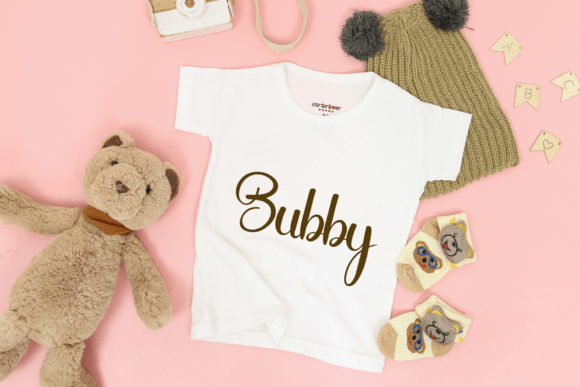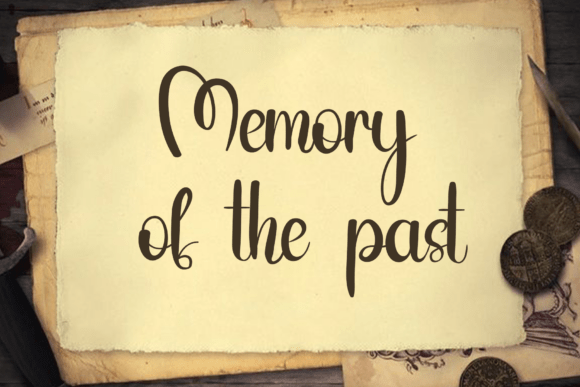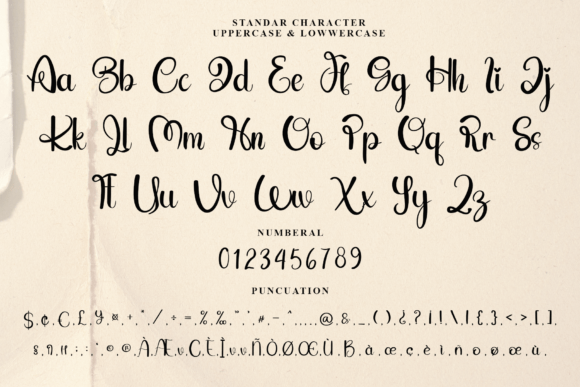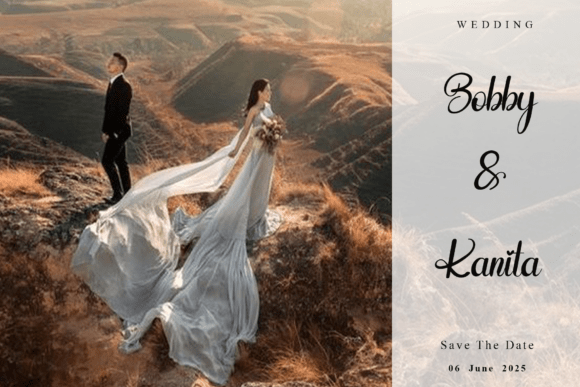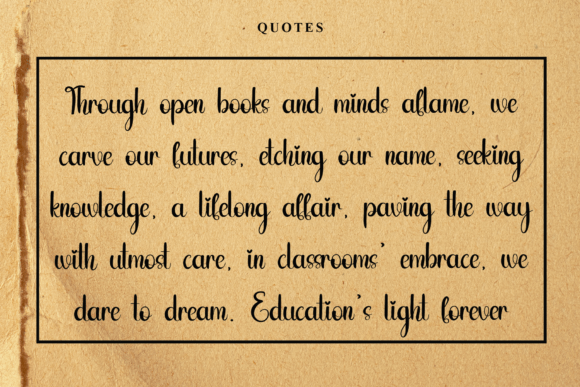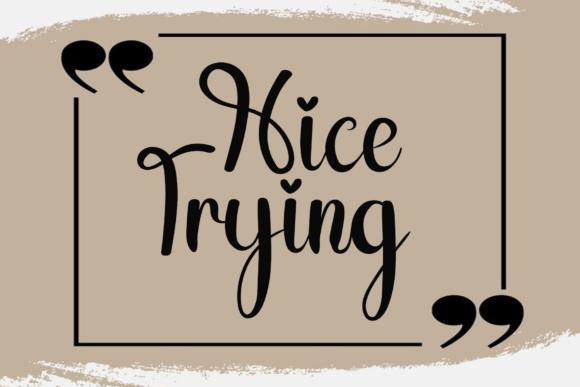
Aries Font: The Sweet and Elegant Handwritten Font for Your Design Needs
Are you looking for a font that can add a touch of elegance and romance to your designs? Look no further than Aries Font, a beautiful and cursive handwritten font that is perfect for a variety of design projects. In this article, we’ll explore the features and benefits of Aries Font, and show you how it can elevate your designs to the next level.
What is Aries Font?
Aries Font is a sweet and cursive handwritten font that is designed to add a joyful and romantic touch to your designs. With its gentle and flowing lines, Aries Font is perfect for creating elegant and sophisticated designs that are sure to impress. Whether you’re working on a branding project, a wedding invitation, or a fashion lookbook, Aries Font is the perfect choice.
Features of Aries Font
Aries Font has a number of features that make it an ideal choice for designers and crafters. Some of its key features include:
- Sweet and cursive design: Aries Font has a beautiful, cursive design that is sure to add a touch of elegance to your designs.
- Handwritten feel: Aries Font has a handwritten feel that gives it a personal and unique touch.
- Versatile: Aries Font is versatile and can be used on a variety of design projects, from branding and logos to wedding invitations and greeting cards.
- Elegant and sophisticated: Aries Font has an elegant and sophisticated feel that is sure to impress.
Uses for Aries Font
Aries Font is perfect for a variety of design projects, including:
- Branding and logos: Aries Font is perfect for creating elegant and sophisticated brand identities.
- Wedding invitations and things: Aries Font is a popular choice for wedding invitations, save the dates, and other wedding-related design projects.
- Greeting cards: Aries Font is perfect for creating beautiful and elegant greeting cards for special occasions.
- Fashion and lookbooks: Aries Font is a great choice for fashion designers and stylists who want to create elegant and sophisticated lookbooks and marketing materials.
- Marketing and promotion: Aries Font can be used to create elegant and sophisticated marketing materials, such as brochures and flyers.
Benefits of Using Aries Font
There are many benefits to using Aries Font in your designs. Some of the benefits include:
- Elegant and sophisticated designs: Aries Font can help you create elegant and sophisticated designs that are sure to impress.
- Unique and personal touch: Aries Font has a handwritten feel that gives it a unique and personal touch.
- Versatility: Aries Font can be used on a variety of design projects, making it a great addition to your font library.
- Easy to read: Aries Font is easy to read, making it perfect for body text and other applications where readability is important.
Tips for Using Aries Font
Here are a few tips for using Aries Font in your designs:
- Use it sparingly: Aries Font is a elegant and sophisticated font, so use it sparingly to add a touch of elegance to your designs.
- Pair it with other fonts: Aries Font can be paired with other fonts to create a unique and interesting design.
- Experiment with different sizes and colors: Aries Font can be used in a variety of sizes and colors, so experiment to find the look that works best for your design.